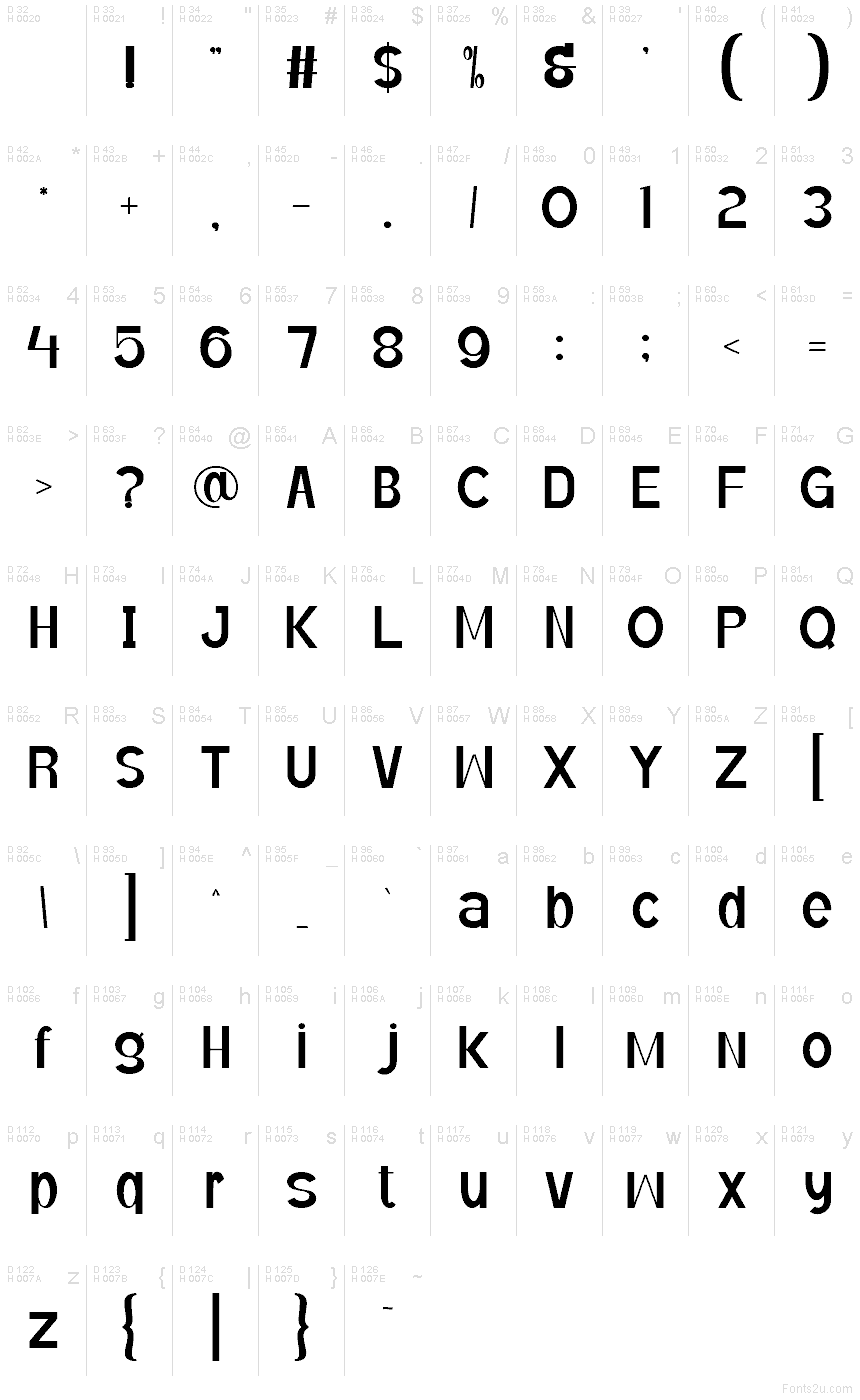
Gaseno Normal
Gaseno font by Gilang Ternadho is a free sans serif typeface with a striking split personality: soft, rounded bowls flowing into unexpectedly sharp, blade-like strokes. Letters feel bold and inky, with tight rhythm and generous curves that make words look sculpted rather than typed. That tension between smooth and angular gives Gaseno an edgy, modern voice that still feels approachable.
Using Gaseno, you get a sans that naturally pulls focus on posters, bold logotypes, album covers, editorial titles, packaging, and striking social graphics. Its chunky forms stay readable at mid sizes, while the dramatic shapes really sing when you scale them up. Pair this free font with a simple, clean grotesk for body text to keep the layout balanced and let Gaseno carry the visual attitude.